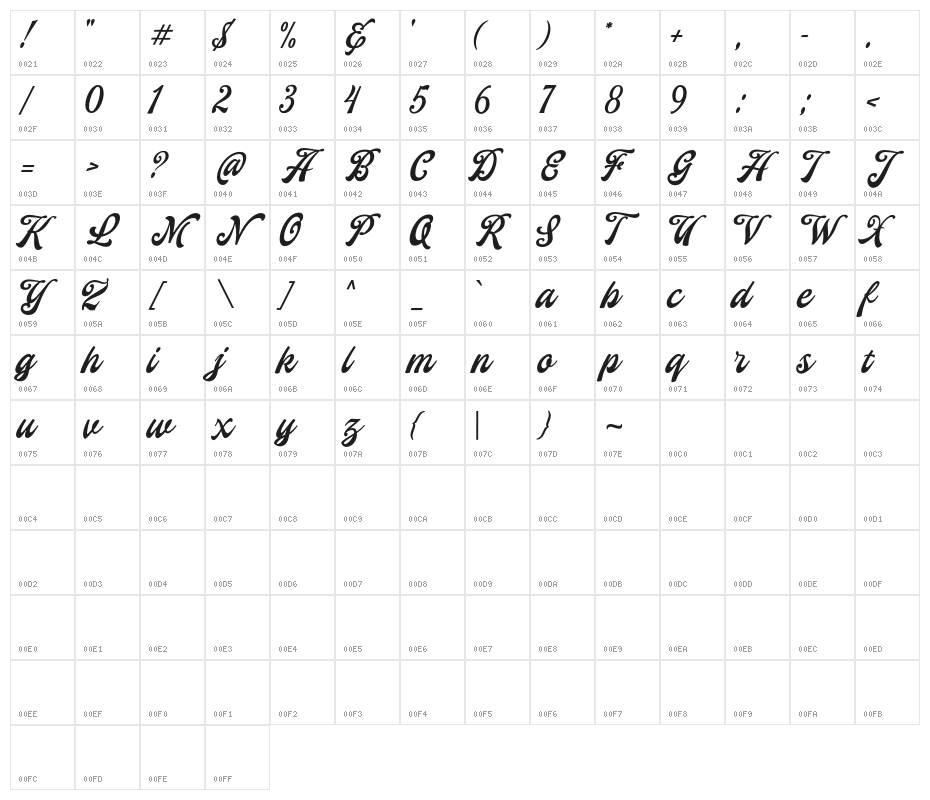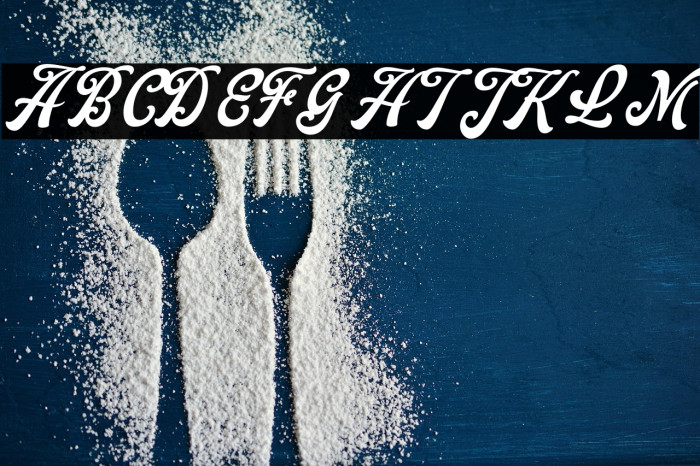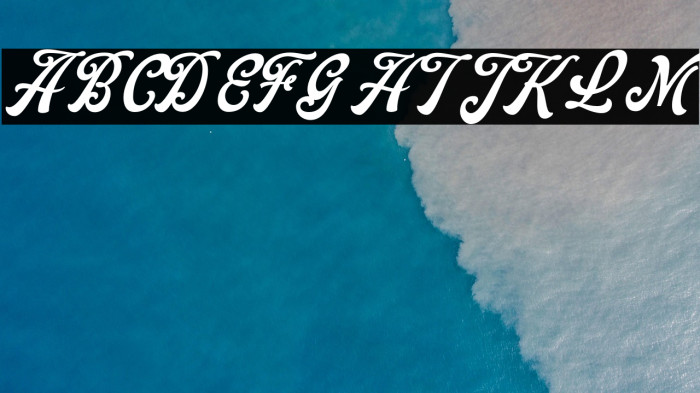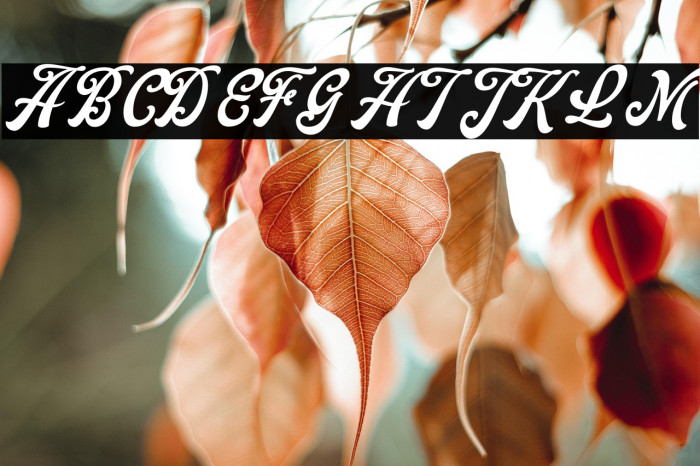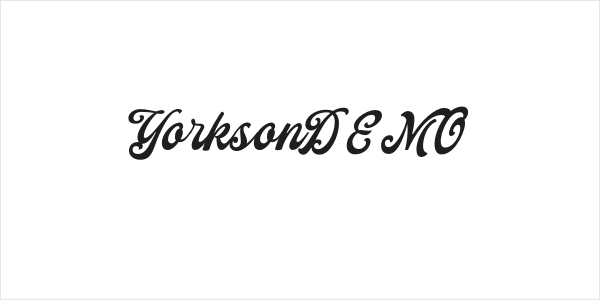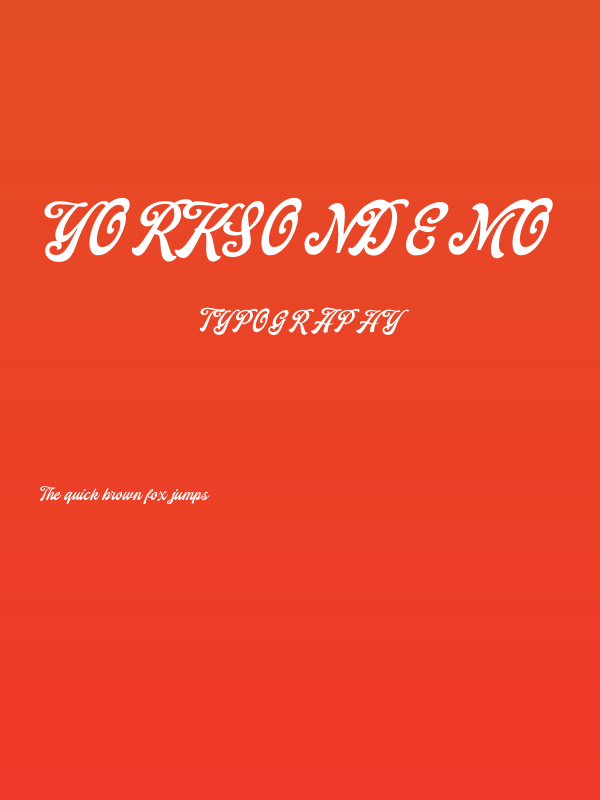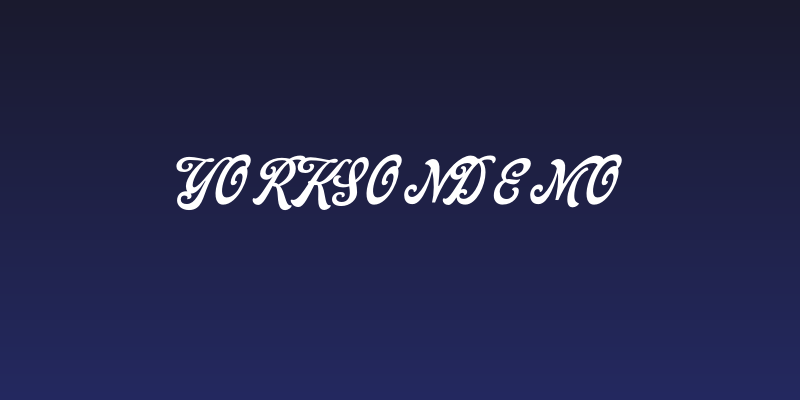
YorksonDEMO Font
YorksonDEMO Description
This font features a bold and flowing script style, characterized by its elegant and cursive letterforms. The uppercase letters exhibit a sophisticated flair with sweeping curves and pronounced loops, while the lowercase letters maintain a consistent fluidity that enhances readability. The numerals are designed with a similar cursive style, ensuring uniformity across all characters. Special characters and punctuation marks are seamlessly integrated, maintaining the font's overall aesthetic. The font's bold weight and high contrast between thick and thin strokes contribute to its striking appearance, making it ideal for decorative purposes.
| Use Case | Headlines, Logos, Invitations |
| Proposed Projects | Ideal for wedding invitations, elegant branding, signage, and decorative headlines. |